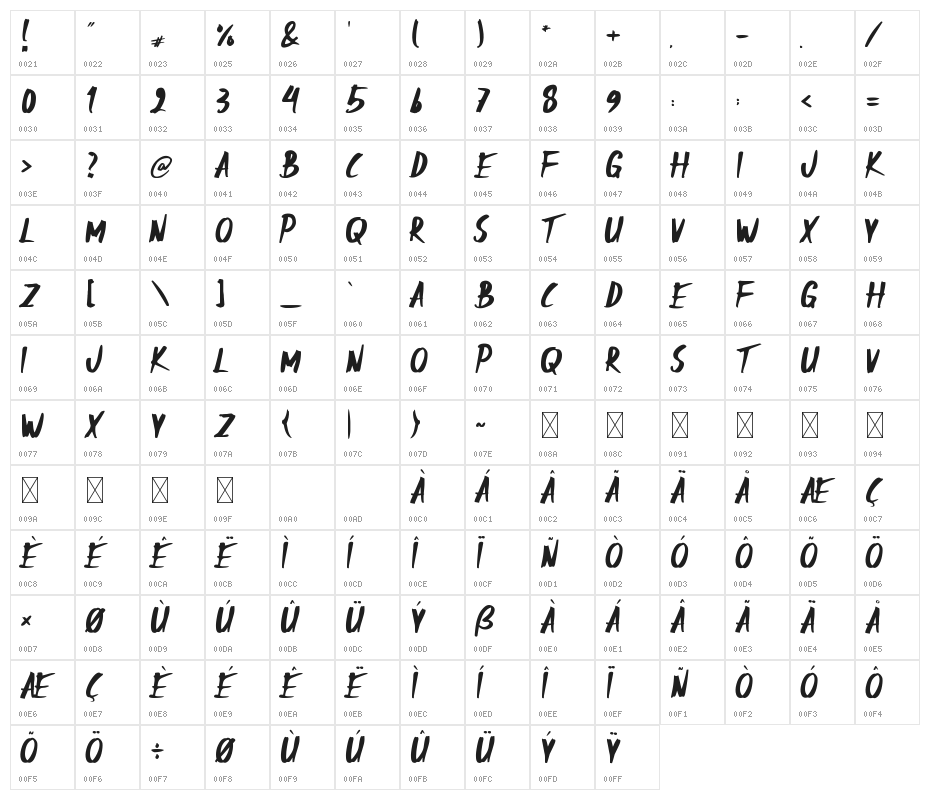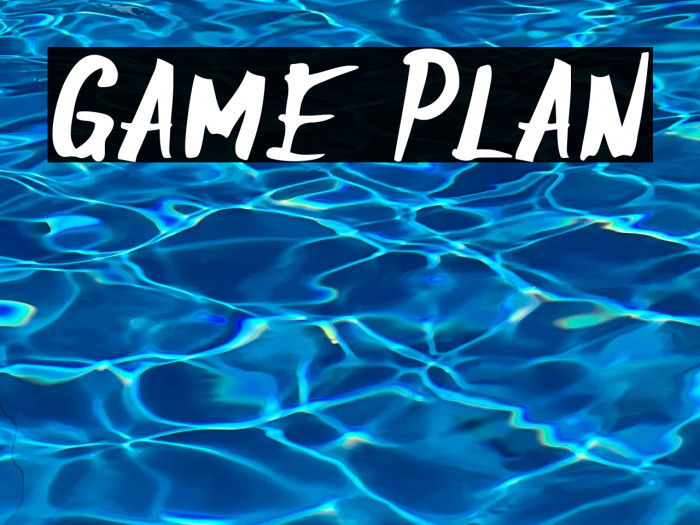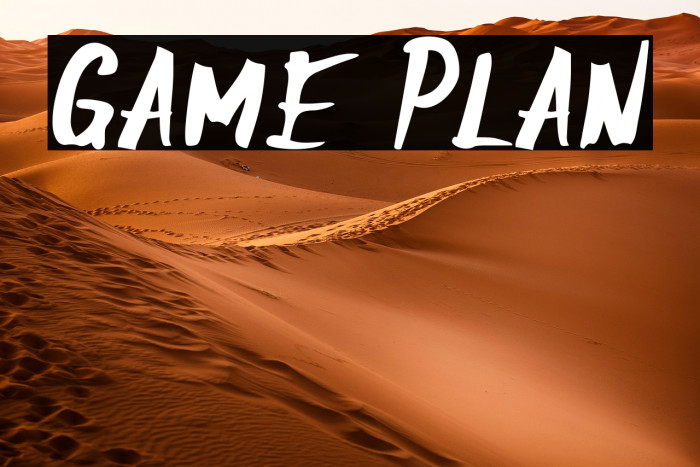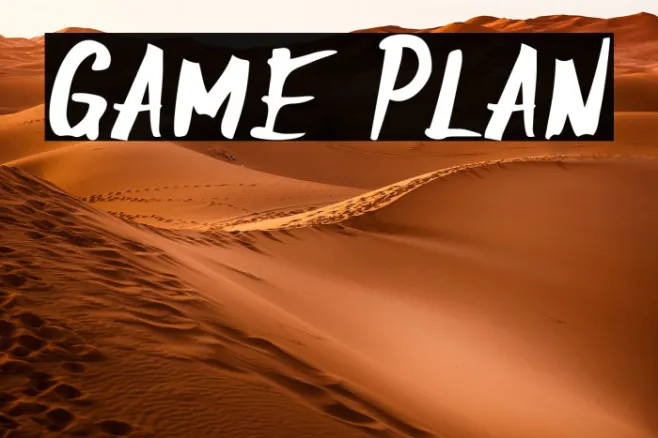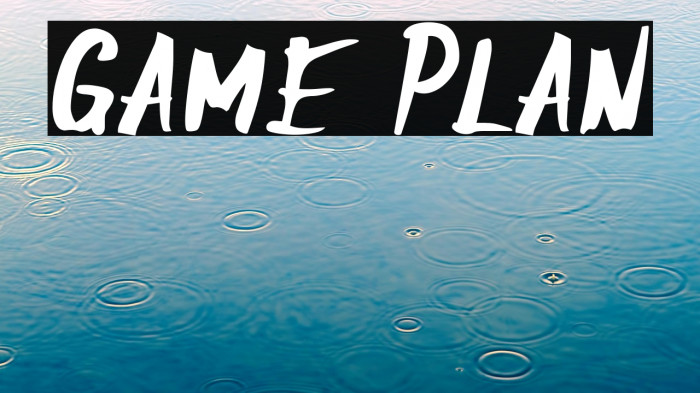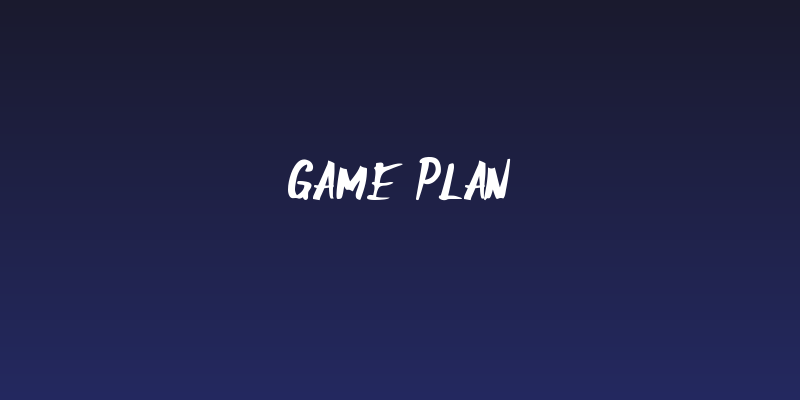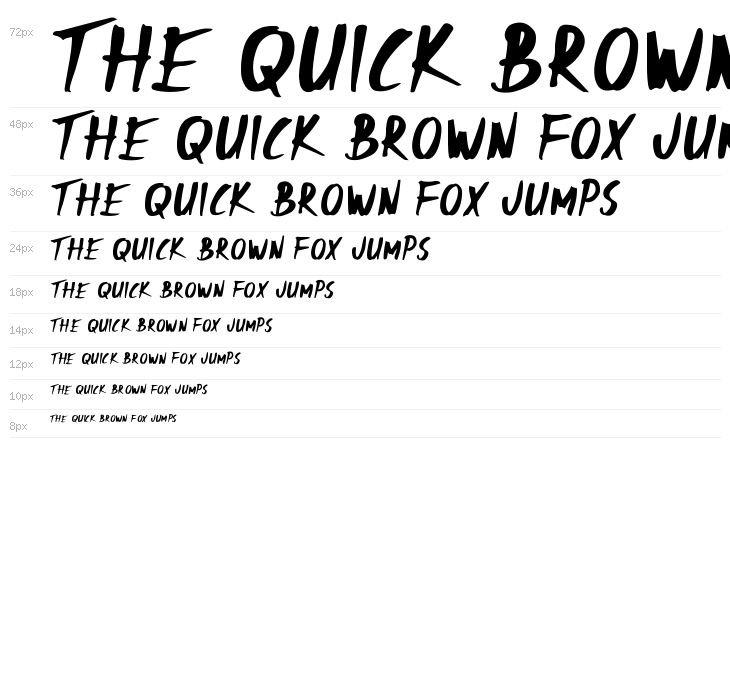
Game Plan Font
Game Plan Description
This font exudes a dynamic and energetic vibe, characterized by its bold and slightly irregular strokes that mimic a handwritten style. The letters are crafted with a playful flair, featuring varying angles and a slightly slanted orientation that adds to its casual and informal appearance. The uppercase and lowercase letters maintain a consistent style, with a noticeable emphasis on the vertical strokes, giving it a strong presence. The numbers and special characters follow the same aesthetic, ensuring a cohesive look across all elements. This font is perfect for projects that require a personal touch or a sense of spontaneity.
| Proposed Projects | Ideal for branding, posters, social media graphics, and any project needing a personal, energetic touch. |